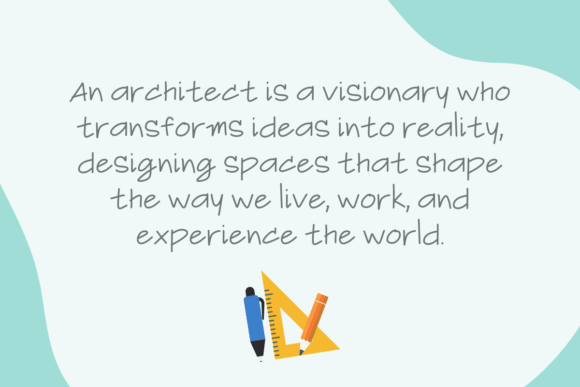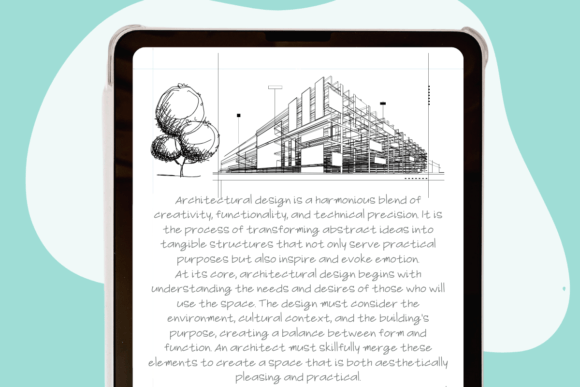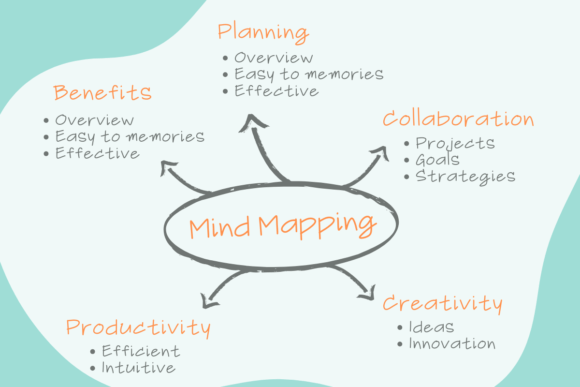
Introduction to Neat Designer Font
Have you ever found yourself scribbling down notes in the middle of a creative brainstorming session, only to wish you had a more polished and professional font to work with? This is exactly the moment when the right design resource can make all the difference. For designers and creatives, having access to a versatile and high-quality font can elevate their work and make it stand out from the crowd.
Enter the Neat Designer Font, a beautifully crafted handwritten font that’s perfect for digital note-taking and a wide range of creative projects. With its transparent background and free download option, this design resource is a must-have for anyone looking to add a touch of personality to their work.
Key Features of Neat Designer Font
- High-quality vector font with a transparent background, perfect for designers working on creative projects.
- Designed with a modern and clean aesthetic, the Neat Designer Font is ideal for use in digital and print media.
- Supports various languages, including English, Spanish, French, and many more, making it a versatile design tool.
- The font’s unique characteristics include a unique blend of geometric and organic elements, giving it a distinctive look that sets it apart from other fonts.
- Perfect for use in logos, branding materials, advertisements, and other creative projects where a high-quality, modern font is required.
Honest Review: Neat Designer Font
As a designer, I’m always on the lookout for high-quality design resources to elevate my creative projects. The Neat Designer Font is one such resource that caught my attention. In this review, I’ll share my honest thoughts on what works well and what doesn’t.
- The font’s sleek and modern design makes it perfect for minimalist projects.
- The high-quality resolution ensures that the font looks great even on high-resolution screens.
- The transparent background makes it easy to use the font on various design elements.
- The font family is relatively small, so you may need to use it in combination with other fonts to create a comprehensive typographic system.
- The font doesn’t come with a lot of variations, so you may need to get creative with your font combinations.
Overall, the Neat Designer Font is a great addition to any designer’s toolkit. While it has its limitations, its high-quality design and transparent background make it a valuable resource for creative projects. With a free download, it’s definitely worth checking out.
Tips for Getting the Most Out of Neat Designer Font
Use Neat Designer Font on a transparent background to create a clean and modern look. Experiment with different font sizes and styles to add visual interest to your design. You can also pair Neat Designer Font with other high-quality design resources to create a cohesive and professional design.
Neat Designer Font is a versatile font that can be used for a variety of creative projects, including graphic design, digital art, and print materials. It’s a great resource for designers who want a high-quality font with a clean and modern look. You can download Neat Designer Font for free and use it in your next design project.
Q: Is the Neat Designer Font suitable for high-quality print projects?
Yes, the Neat Designer Font is designed to be high-quality and suitable for print projects. It has been carefully crafted to ensure that it looks great at various font sizes and resolutions, making it perfect for business cards, brochures, and other print materials.